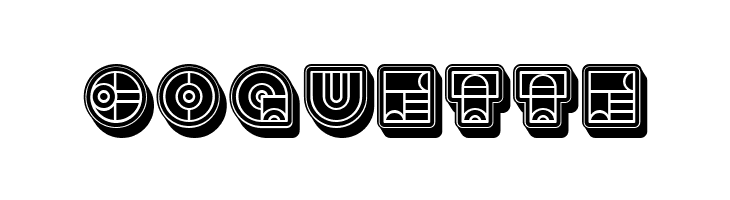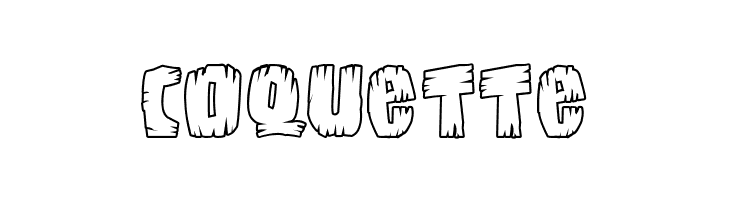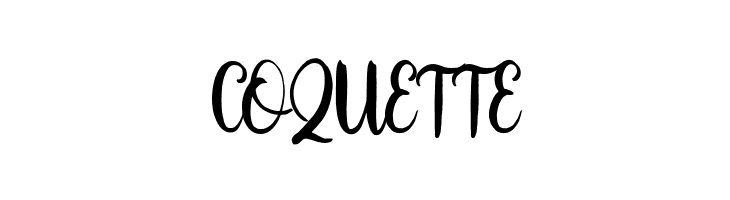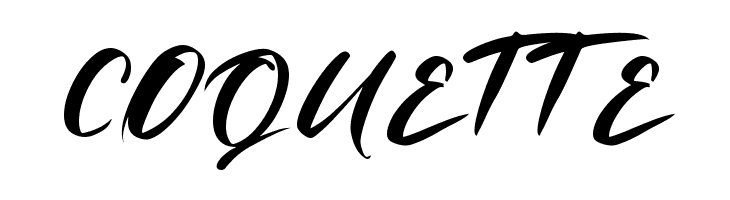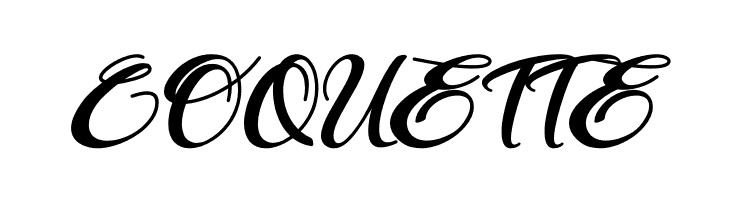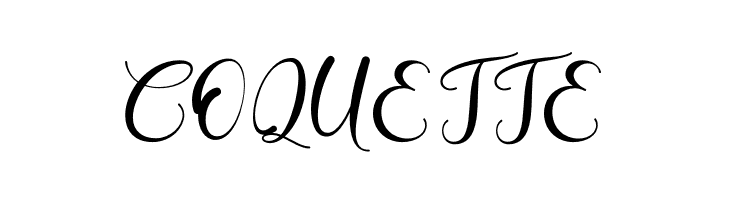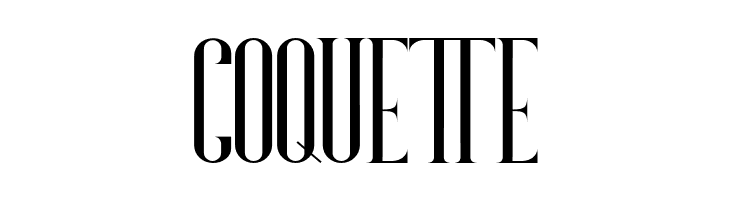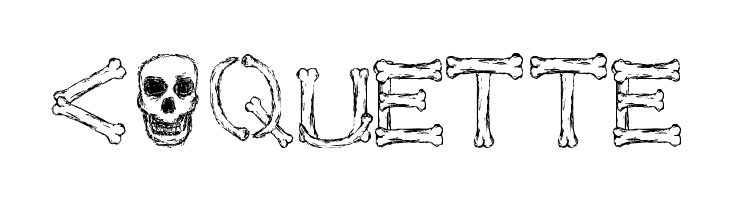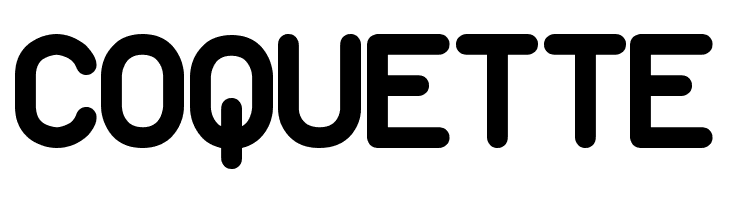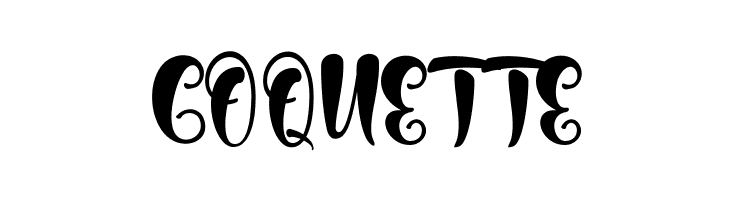
A bold, playful font with a hand-drawn, sketch-like texture.
A bold, expressive script font with dynamic curves and modern style.
A bold, decorative script font with playful curves and flourishes.
A modern, elegant script font with flowing cursive letters and dramatic flourishes.
A dynamic and expressive script font with fluid, sweeping strokes.
An elegant, high-contrast font with elongated, narrow characters.
A bold, geometric 3D font with Art Deco influences and intricate patterns.
An elegant script font with flowing lines and classic calligraphic style.